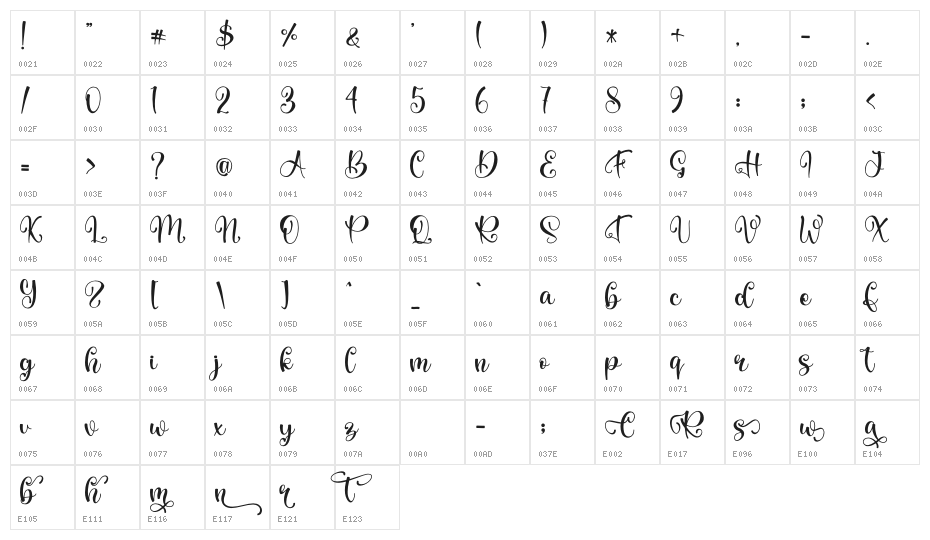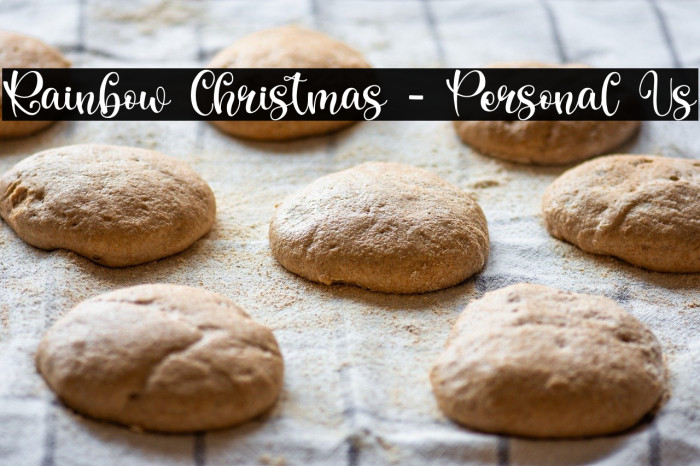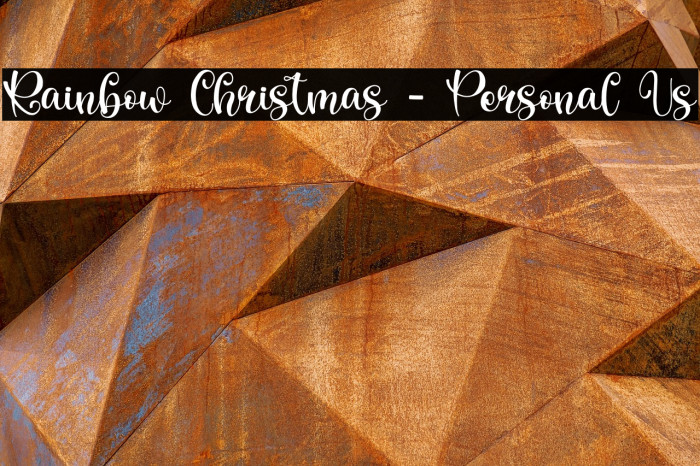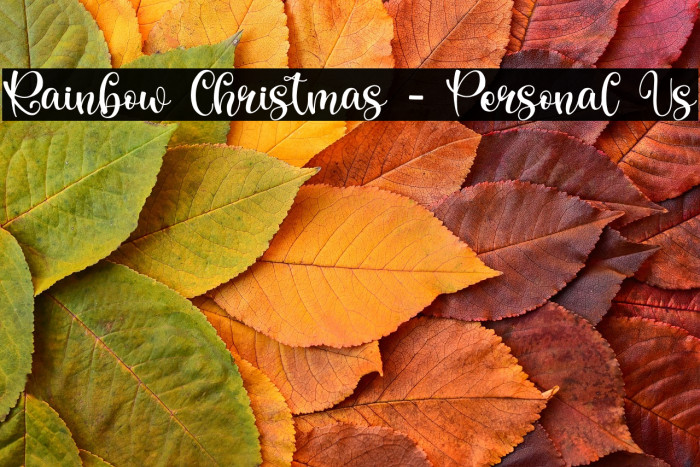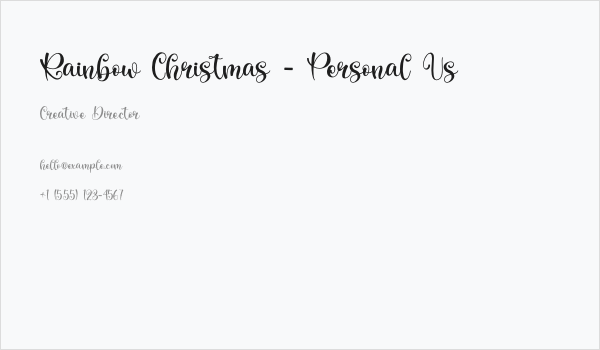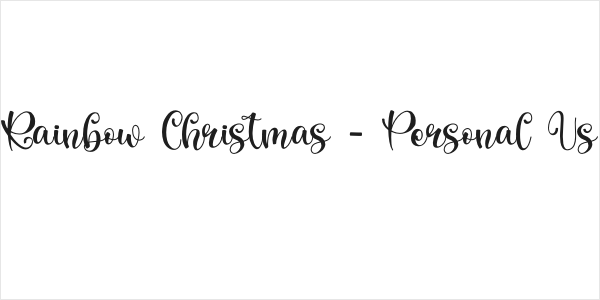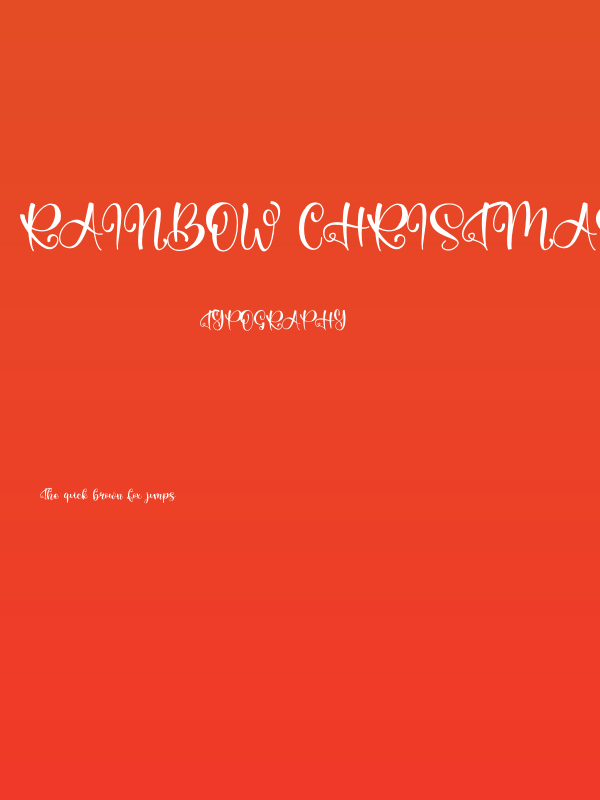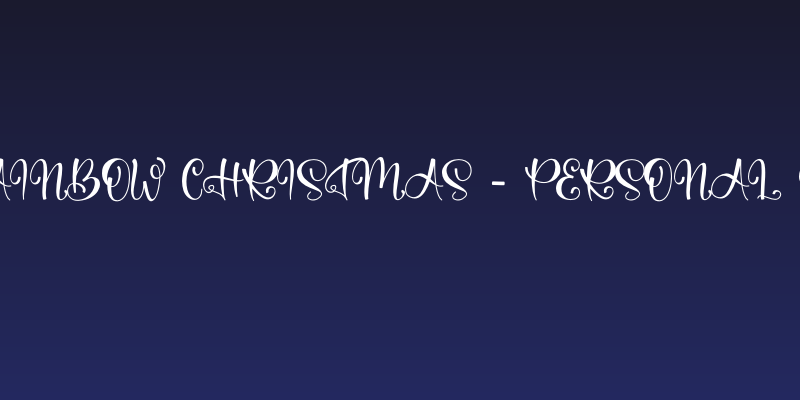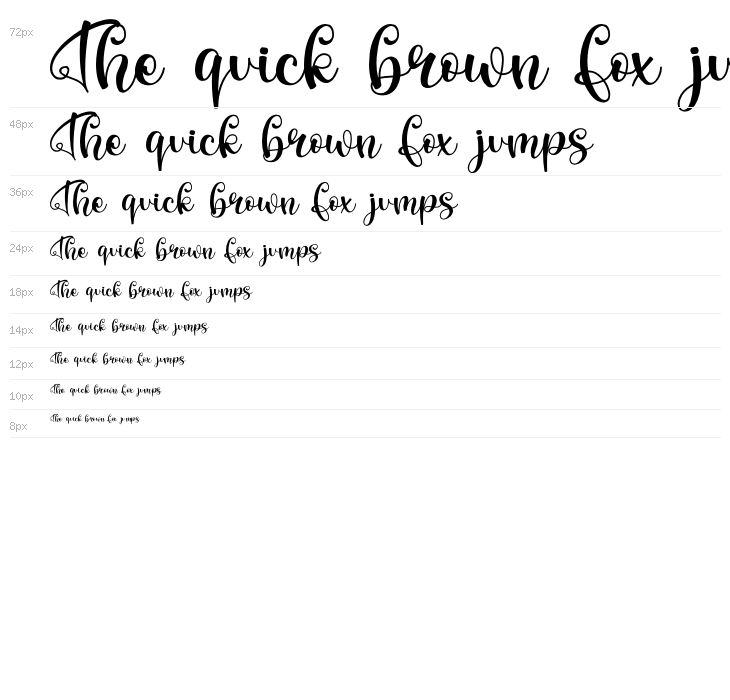
Rainbow Christmas - Personal Us Font
Rainbow Christmas - Personal Us Description
This font exhibits a whimsical and festive style, characterized by its flowing, cursive script that combines elegance with a playful touch. The uppercase letters are adorned with intricate swirls and loops, giving them a decorative flair that is both eye-catching and sophisticated. The lowercase letters maintain a consistent style, with smooth curves and a slightly exaggerated slant that enhances the overall fluidity of the text. Numbers and special characters are designed to match the ornate style of the letters, ensuring a cohesive look across all elements. This font's unique blend of elegance and playfulness makes it ideal for projects that require a touch of creativity and charm.
| Use Case | Headlines, Invitations, Decorative Text |
| Proposed Projects | Ideal for holiday cards, invitations, branding for festive events, and decorative signage. |